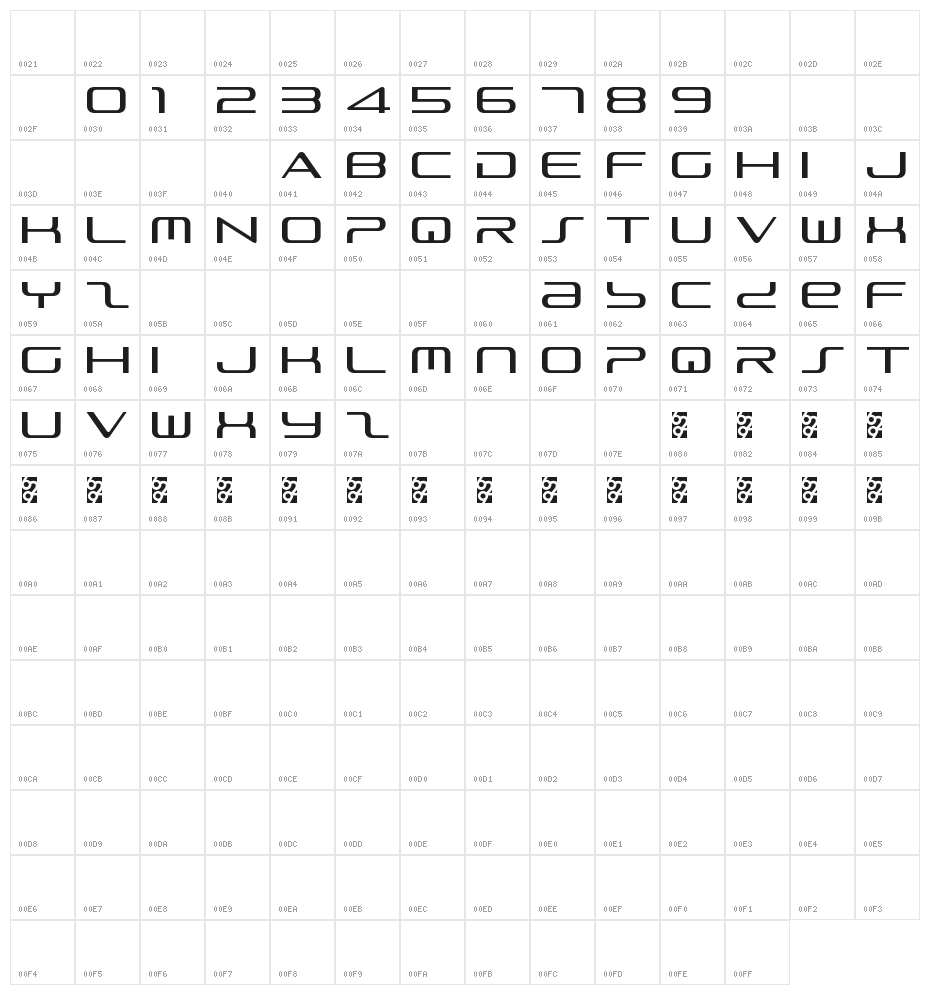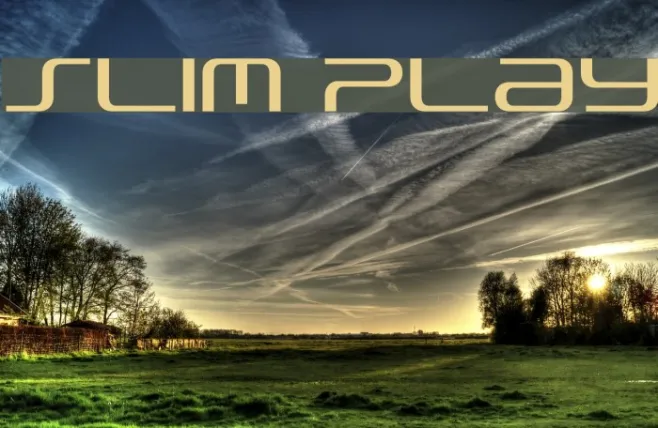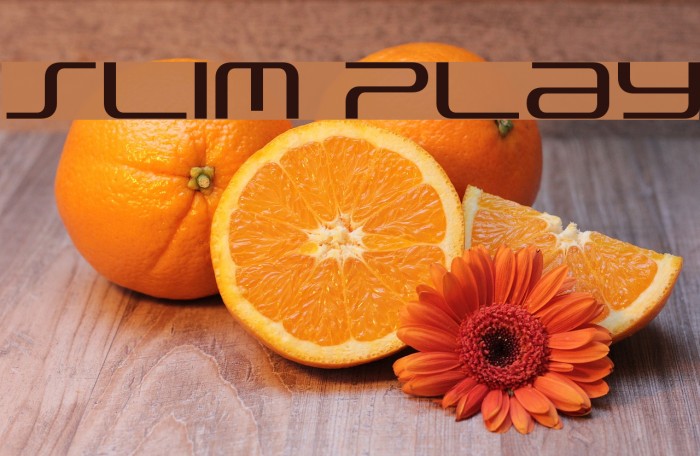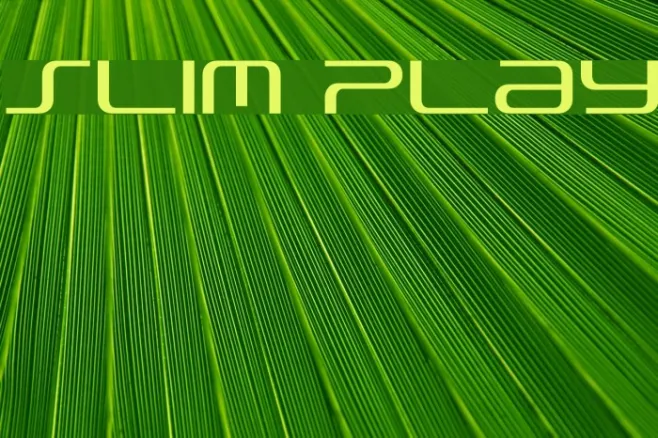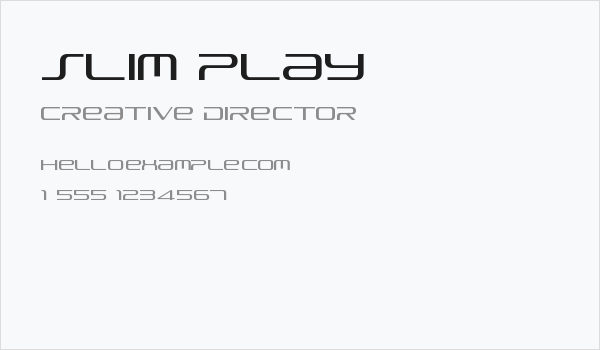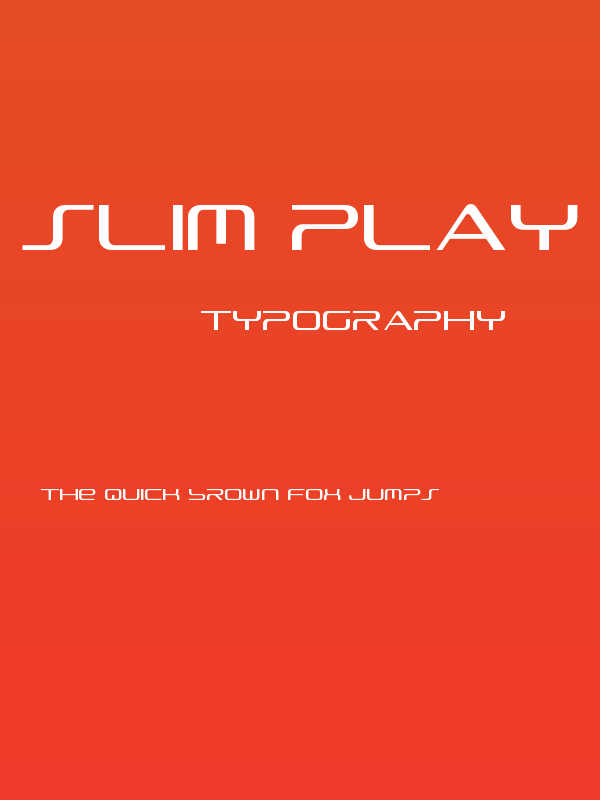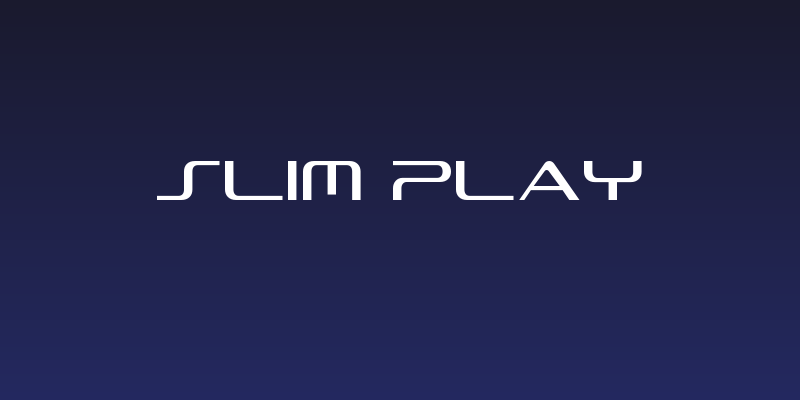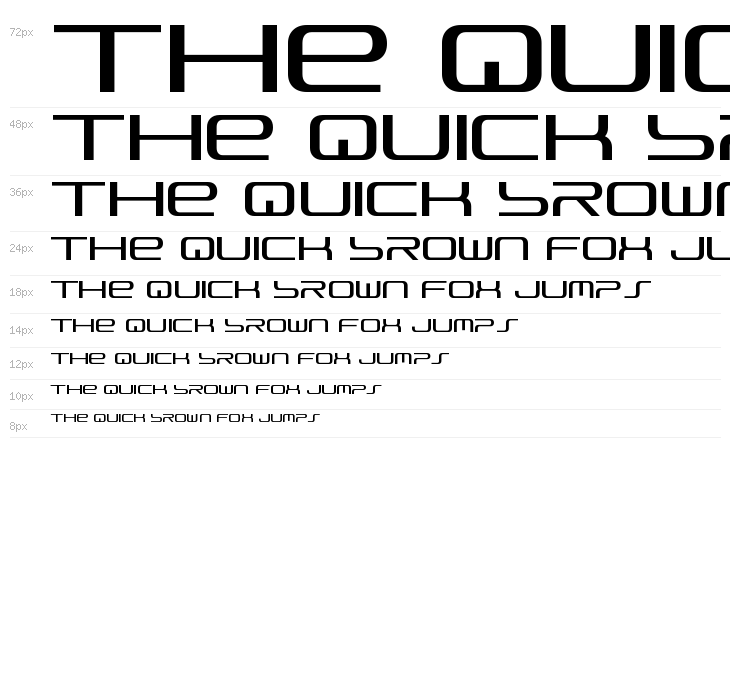
Slim Play Font
Slim Play Description
This font exhibits a sleek, modern design with a futuristic flair. The characters are crafted with a geometric precision, featuring clean lines and a uniform stroke width that conveys a sense of balance and harmony. The uppercase and lowercase letters maintain a consistent style, with subtle curves and angles that add a unique touch to the overall appearance. The numerals are designed to match the letterforms, ensuring a cohesive look across all characters. This font's minimalist aesthetic makes it suitable for contemporary design projects, where clarity and style are paramount.